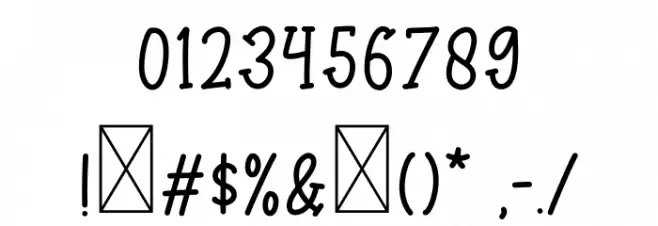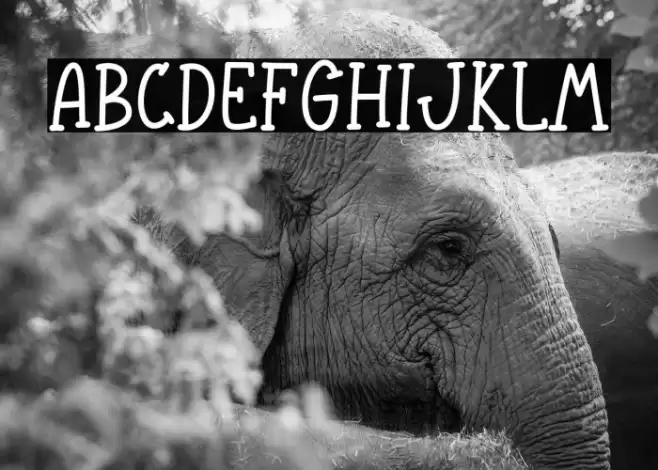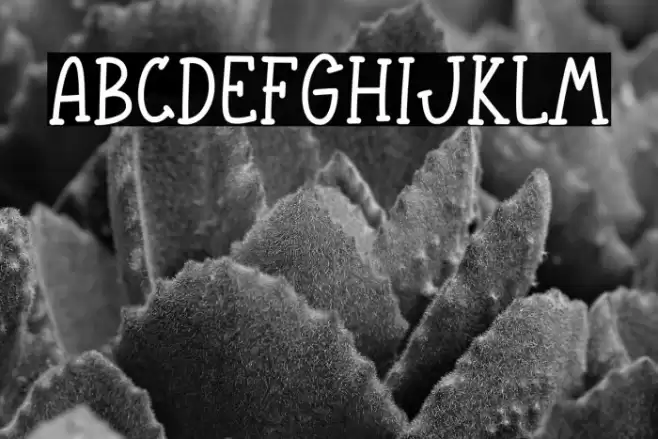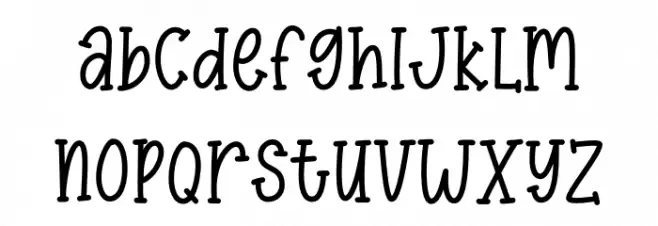
Welcome Autumn Font
Welcome Autumn Description
This font features a playful and whimsical style, characterized by its rounded and slightly irregular letterforms. The uppercase letters have a distinct, hand-drawn appearance with subtle variations in stroke width, giving them a lively and dynamic feel. The lowercase letters maintain this playful aesthetic, with some characters exhibiting unique flourishes that add to the font's charm. The numerals are consistent with the overall style, offering a cohesive look across all characters. Special characters are included, maintaining the same whimsical design. This font is perfect for projects that require a fun and informal touch.
| Proposed Projects | Ideal for children's books, greeting cards, playful branding, and creative posters. |